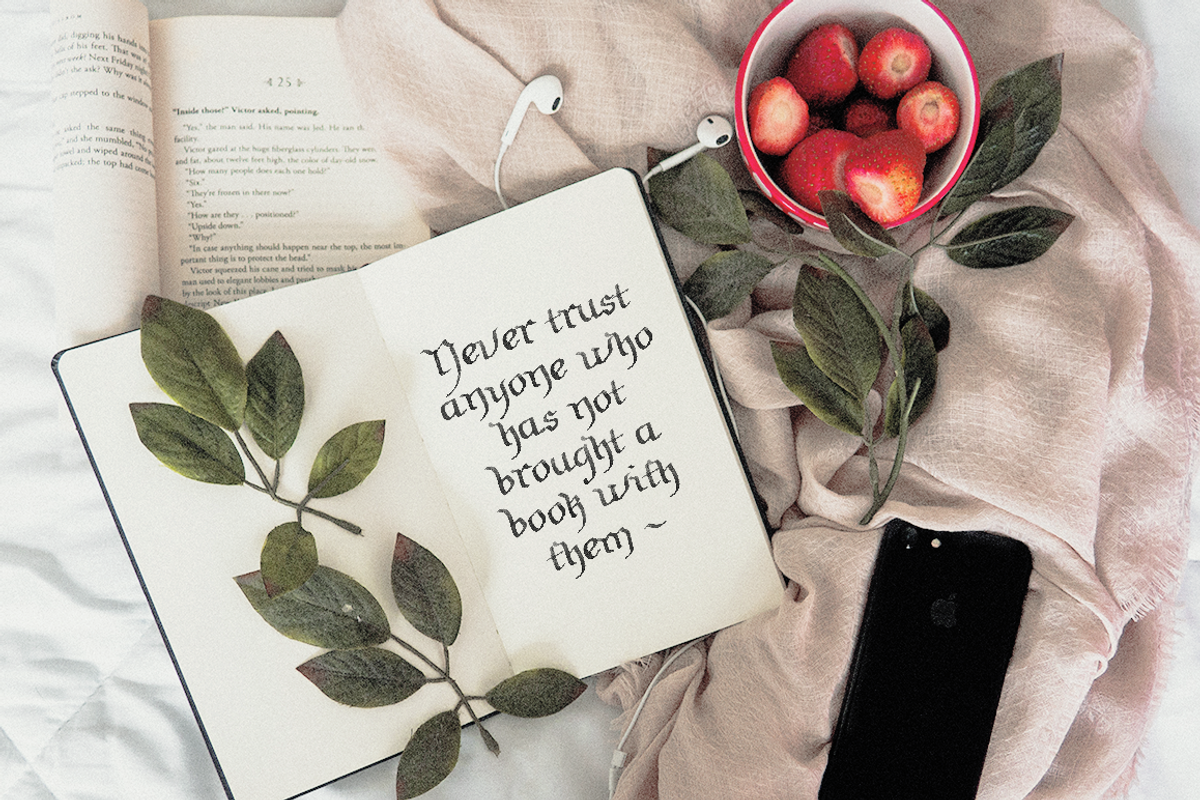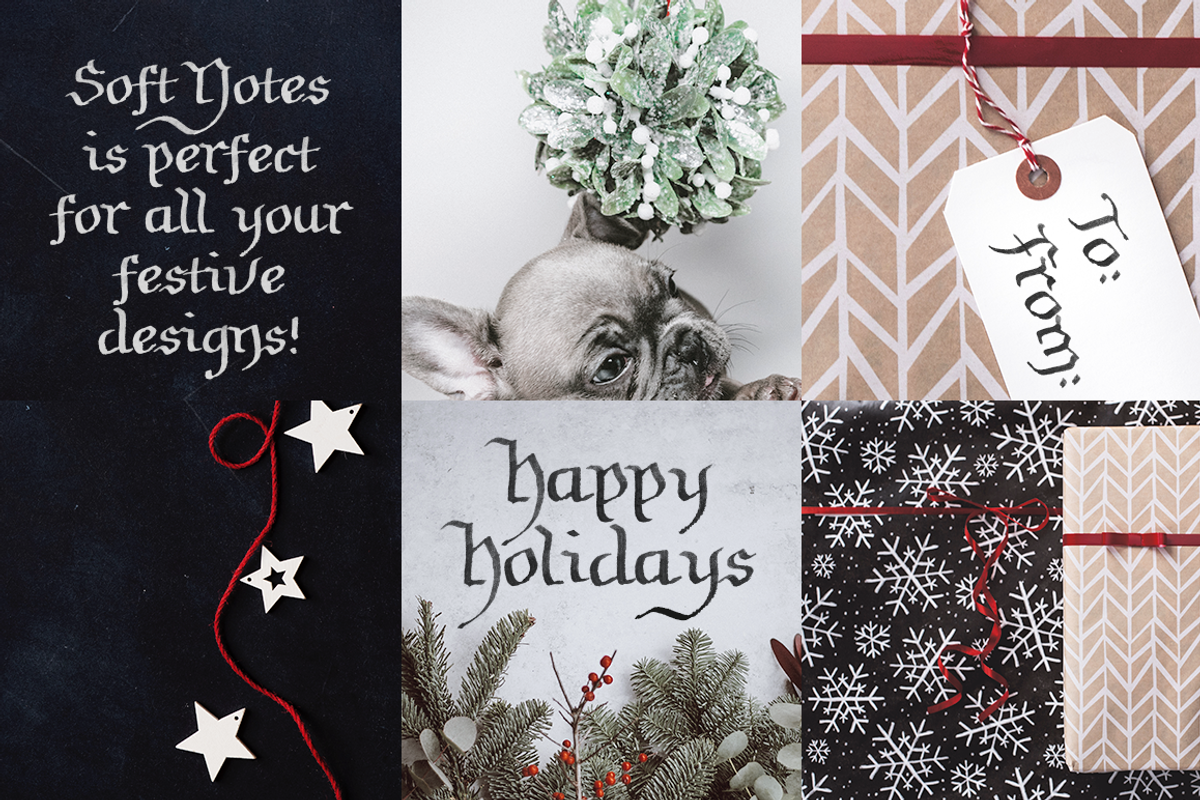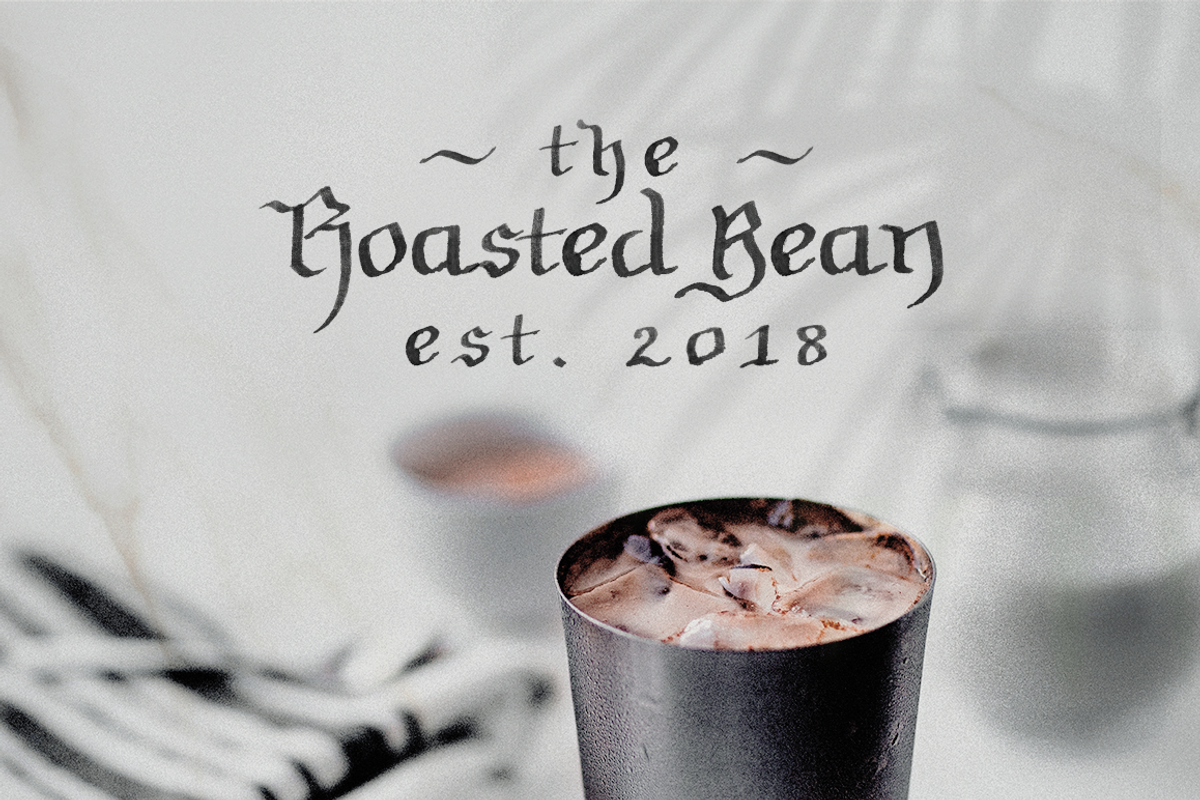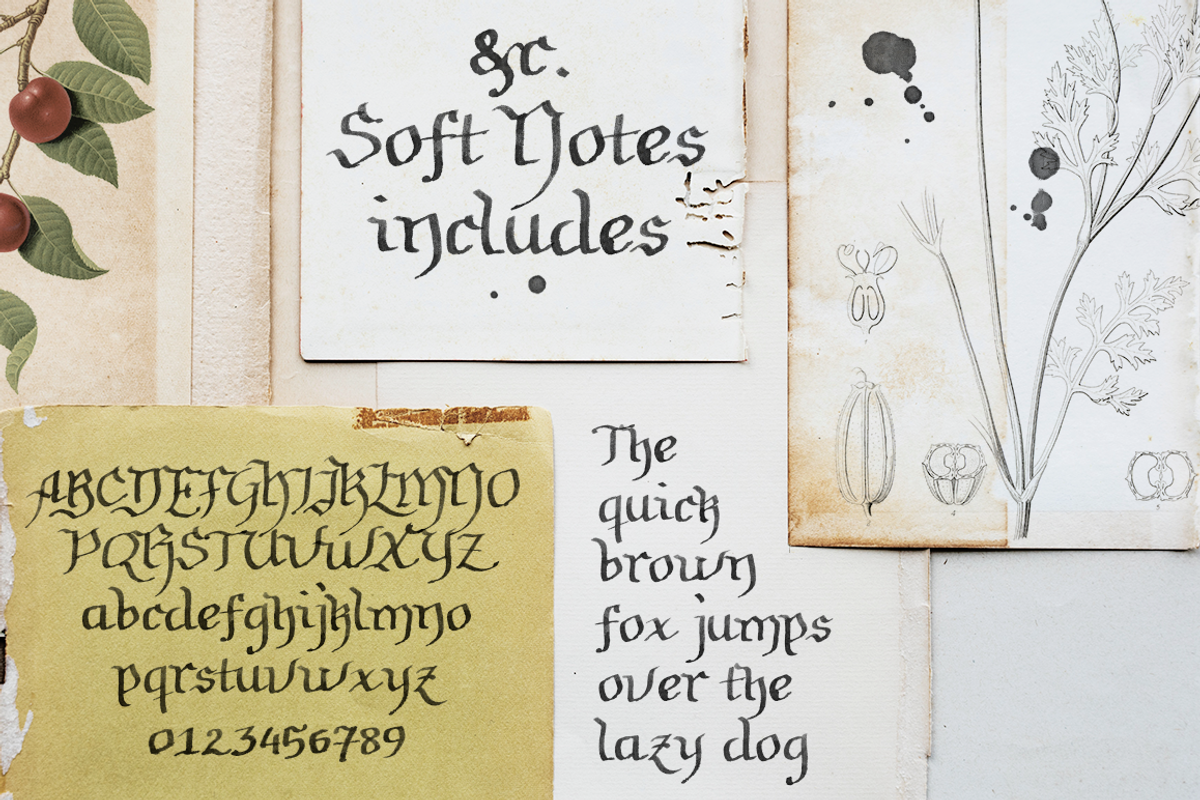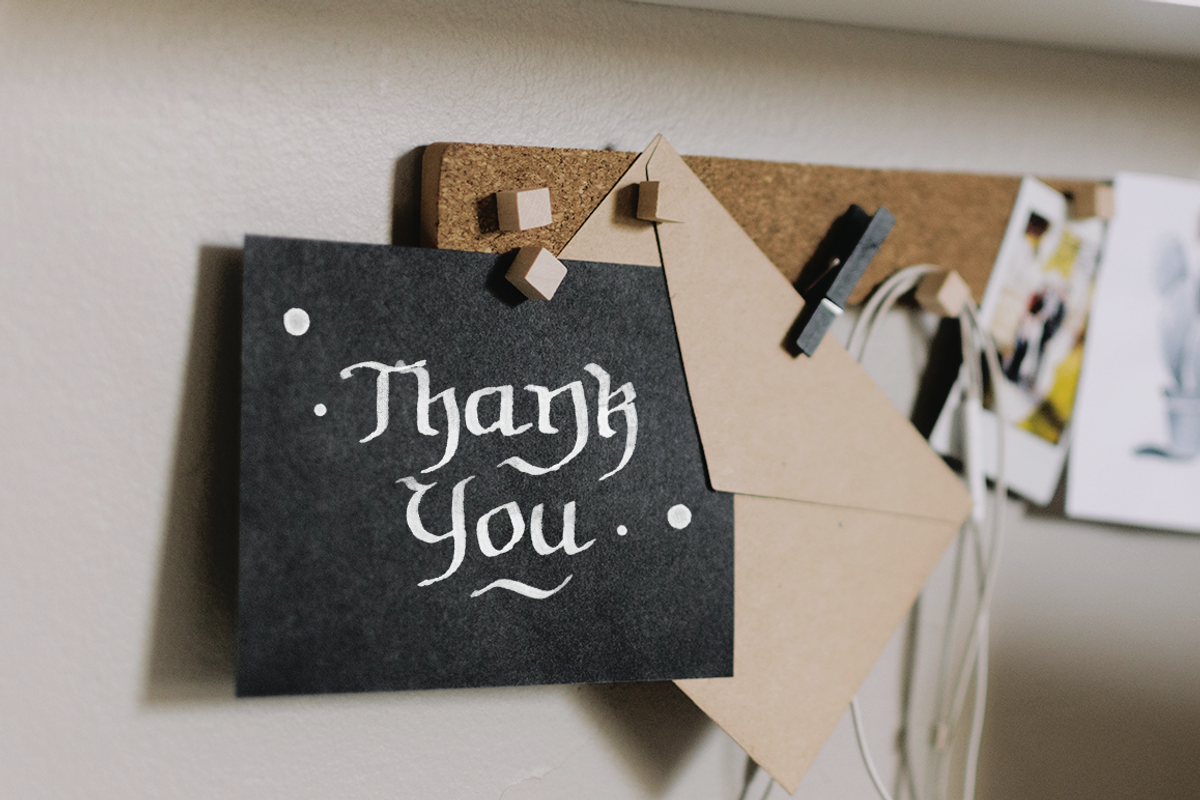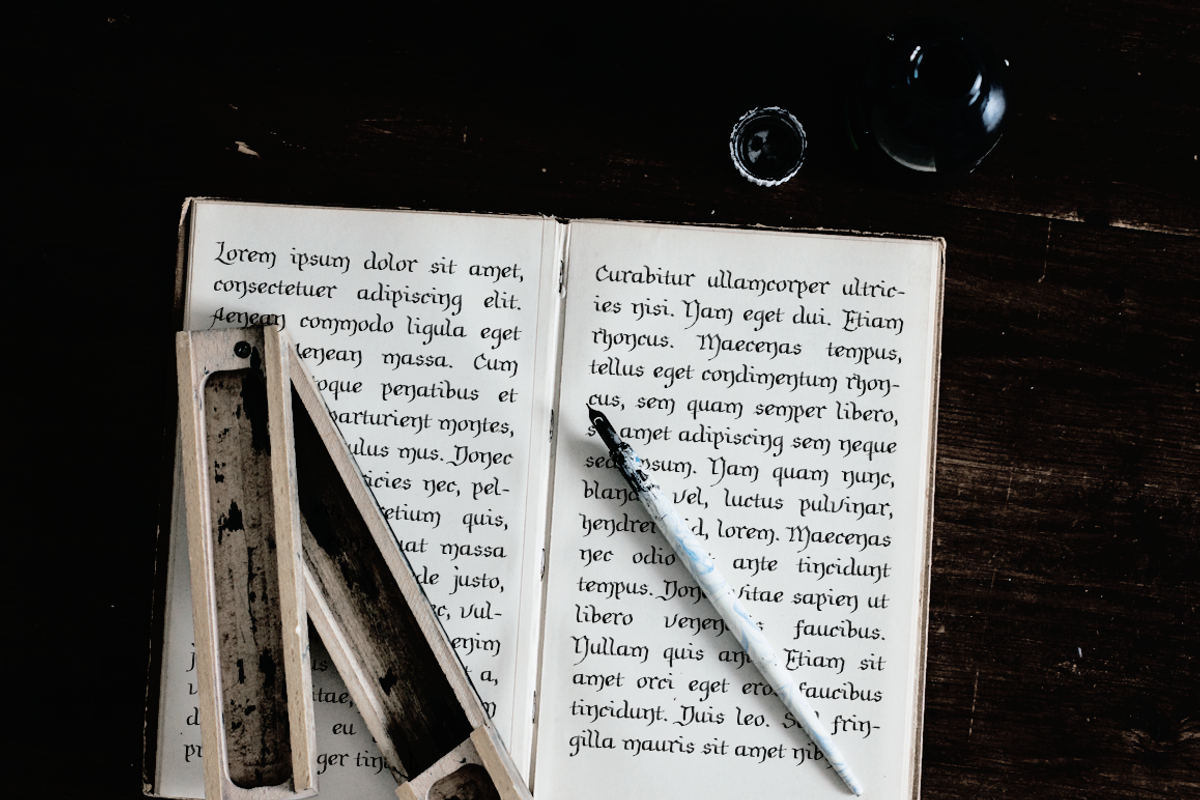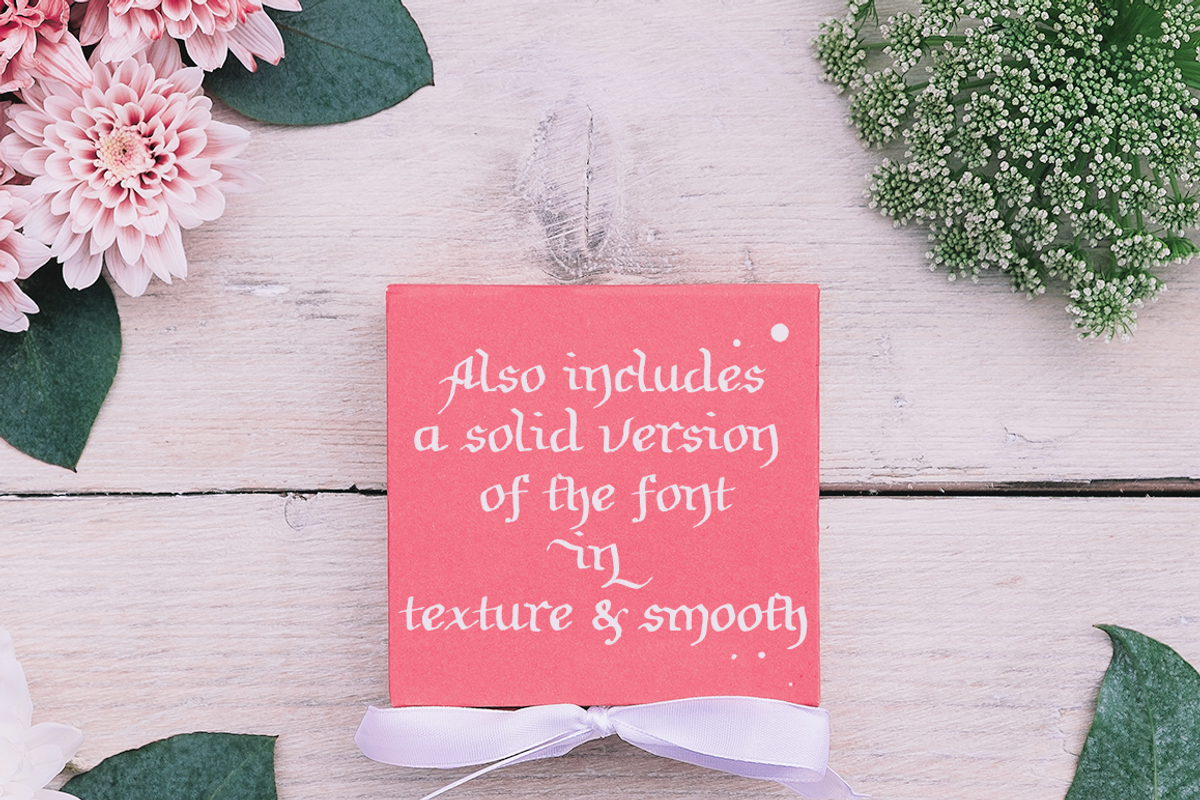
Soft Notes SVG blackletter font
Soft Notes is a feminine blackletter calligraphy font, in three versions:
It's perfect for designs such as postcards and notes, logotypes, social media posts, branding and packaging, etc.
- It also includes a small set of swashes and splatters (0-10 in the Extras fiiles), perfect to decorate your designs.